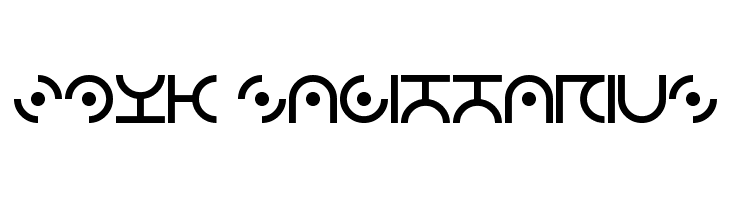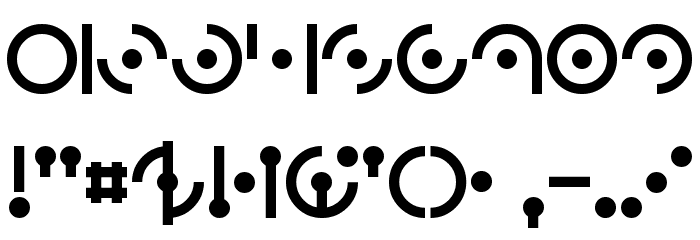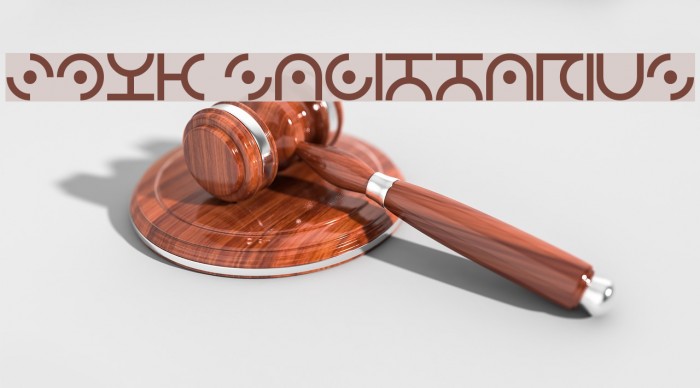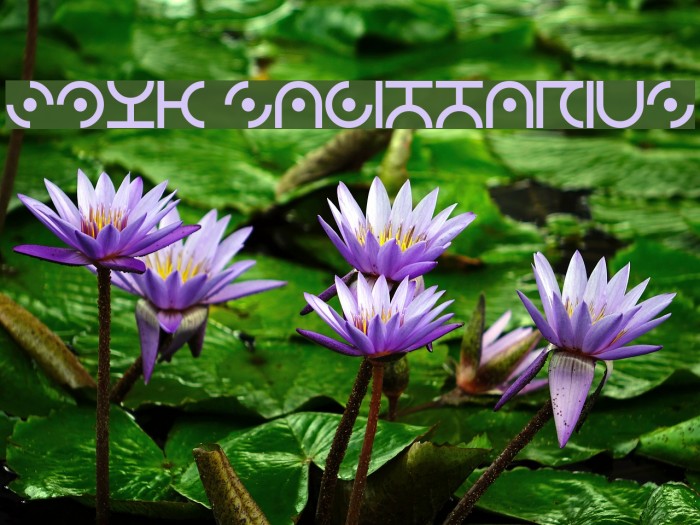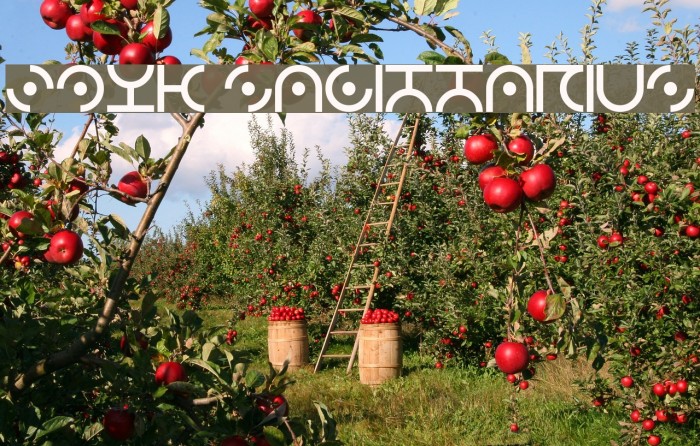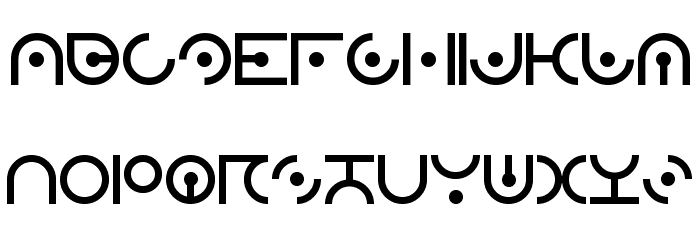
Zdyk Sagittarius Font
This font features a futuristic and geometric design, characterized by its circular and semi-circular shapes combined with straight lines. The letters are crafted with a unique blend of curves and angles, giving it a distinct and modern appearance. The characters are bold and have a consistent stroke width, contributing to a uniform look. The font includes both uppercase and lowercase letters, numbers, and a selection of special characters, all maintaining the same stylistic elements. Its design is reminiscent of sci-fi themes, making it suitable for creative and innovative projects.
A futuristic, geometric font with bold, consistent strokes and sci-fi appeal.
• Proposed Projects: Ideal for sci-fi themed posters, video game titles, futuristic branding, and innovative tech logos.
• Category: Decorative/Display
• Bold: Yes
• Italic: No
• Weight: Bold
• Width: Normal
• Character Spacing: Normal
• Contrast: Low
• Overall Style: Futuristic
• Use Case: Logos, Headlines, Posters